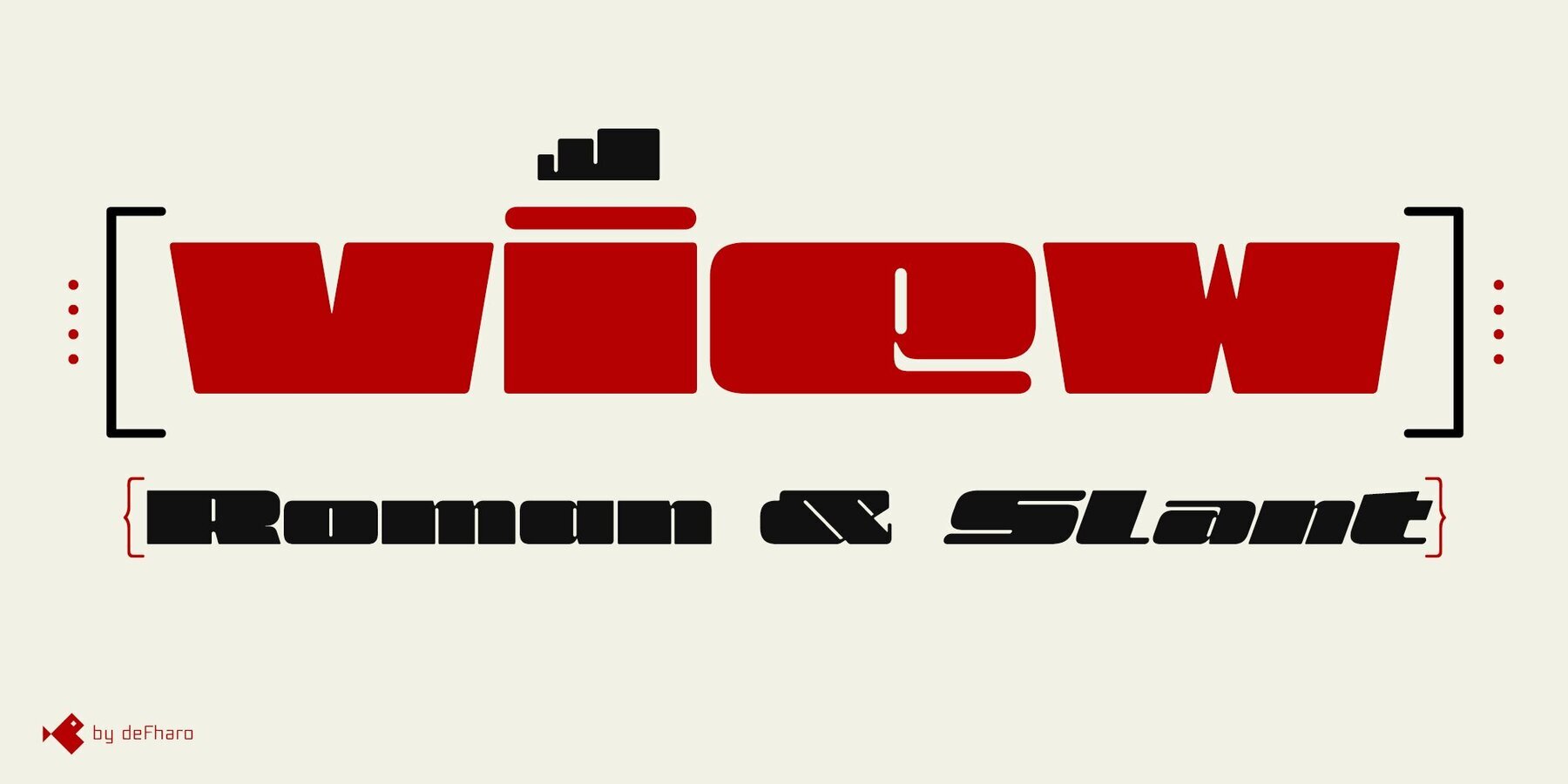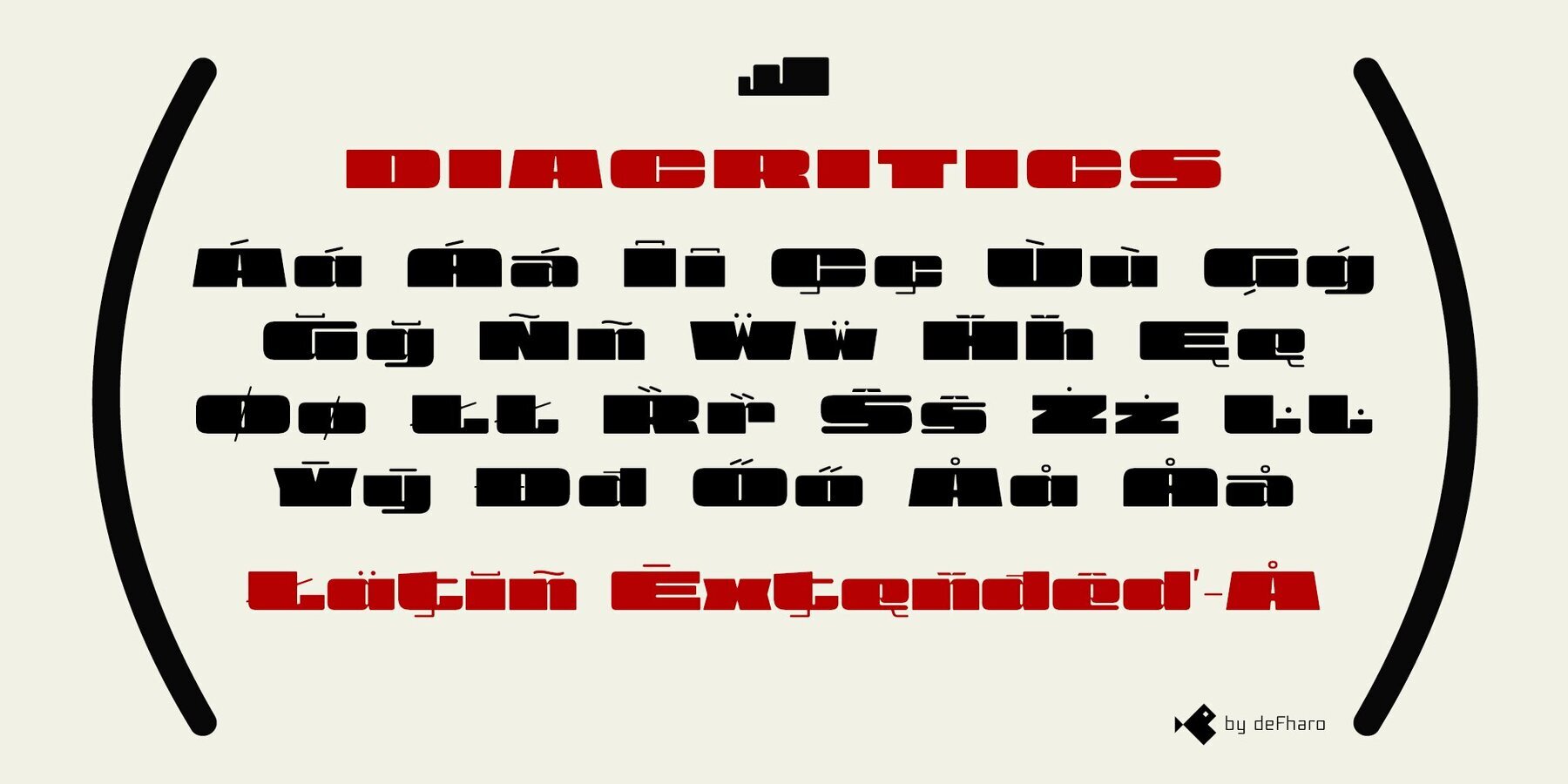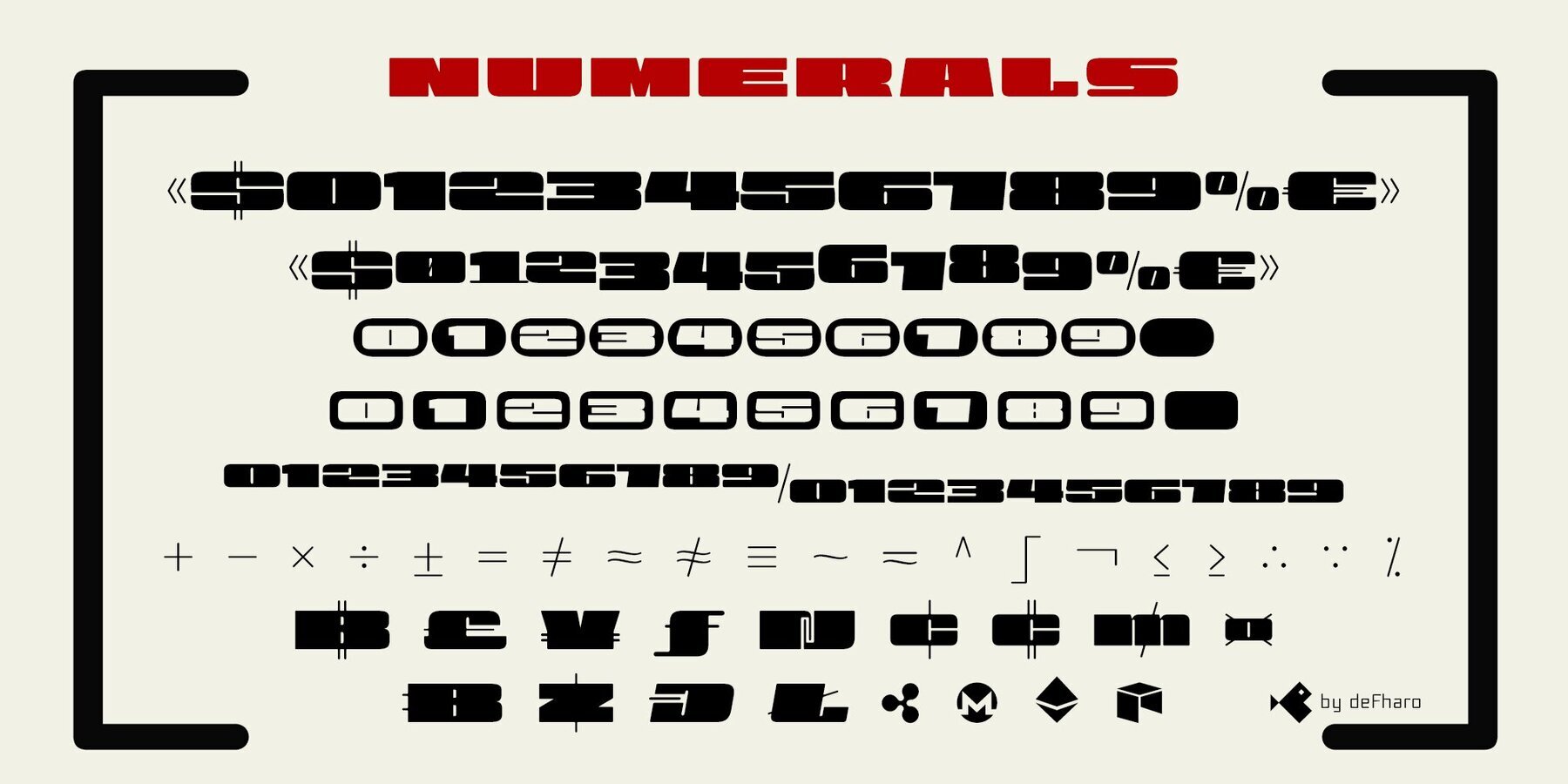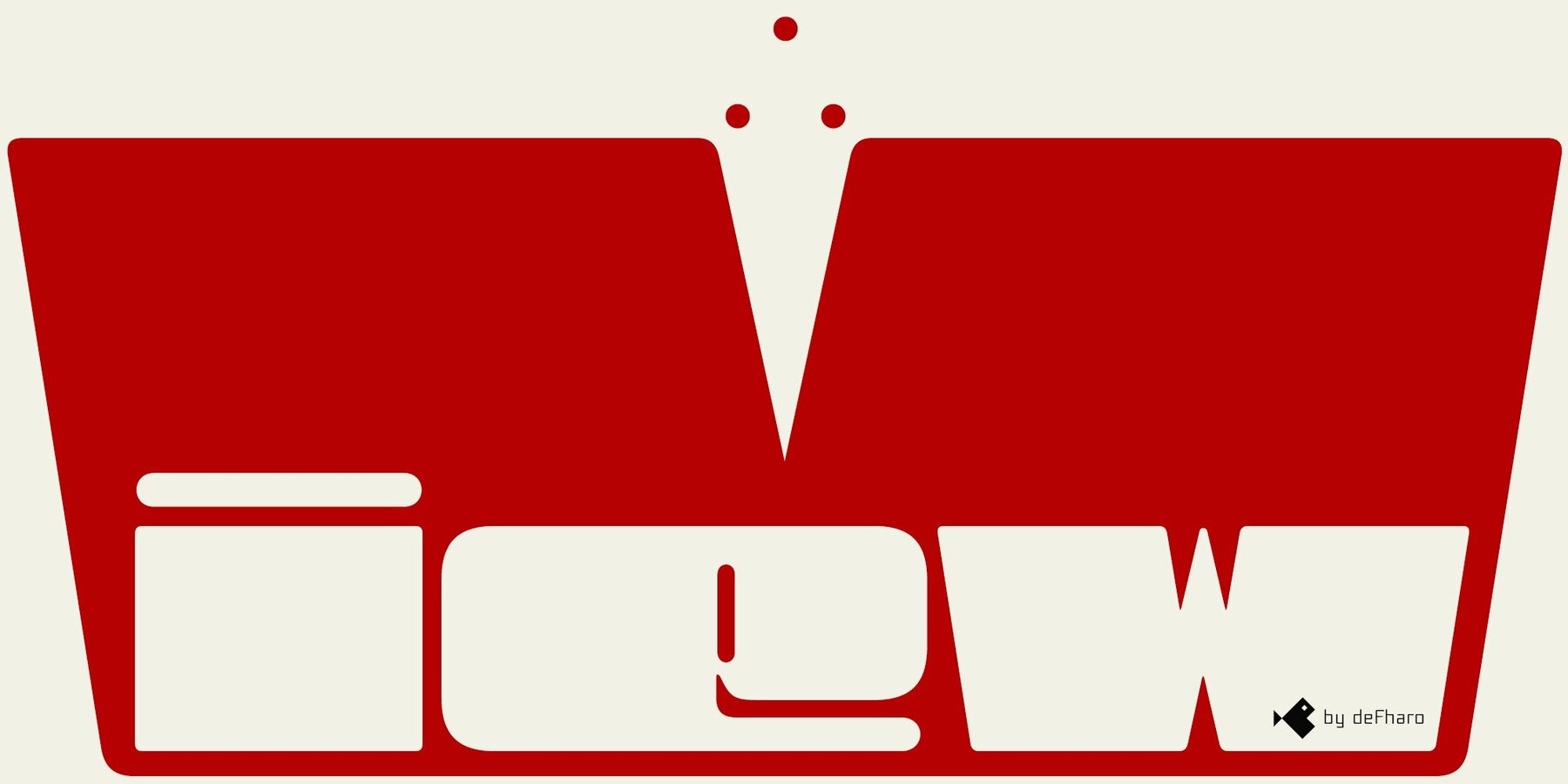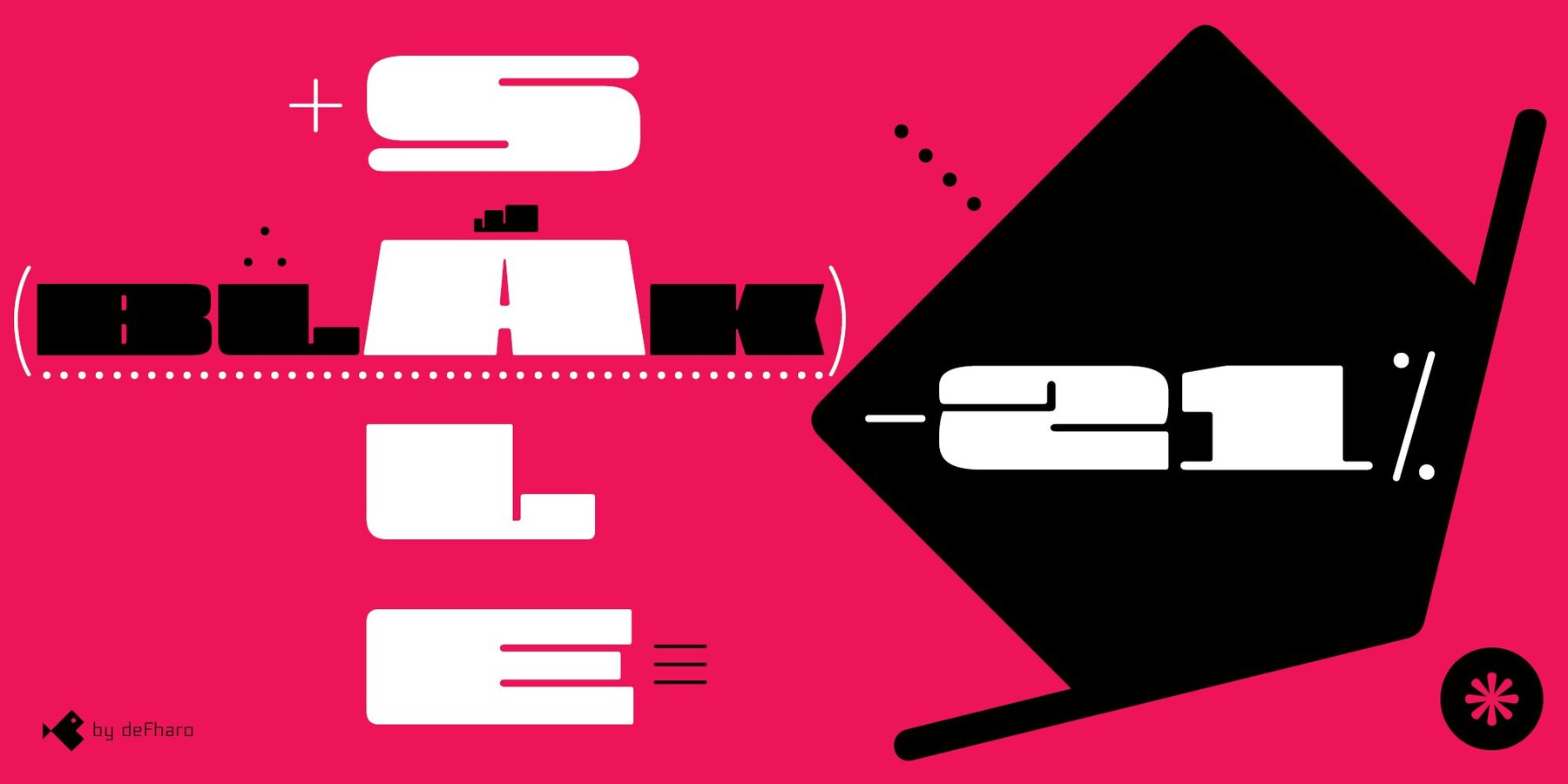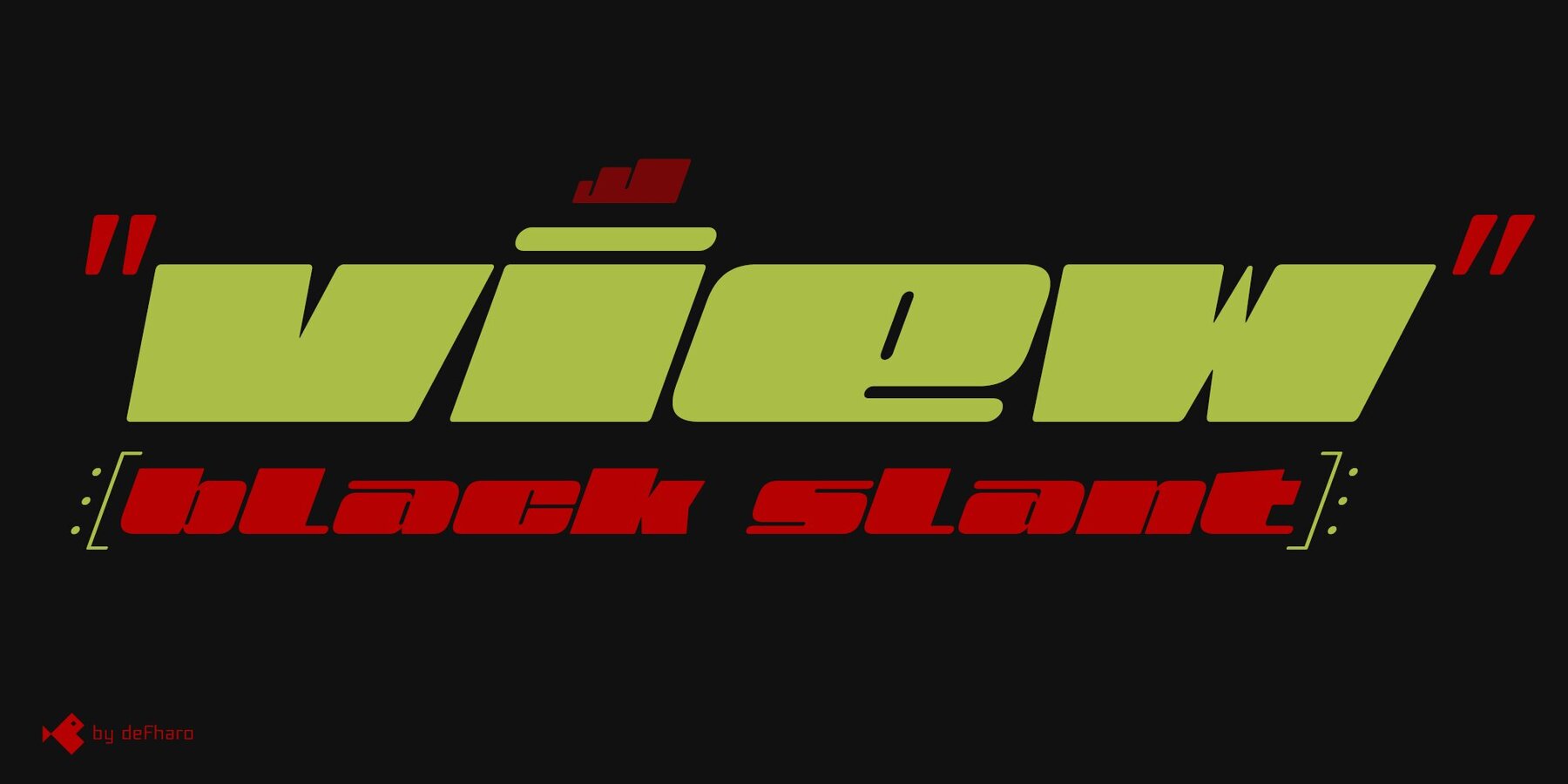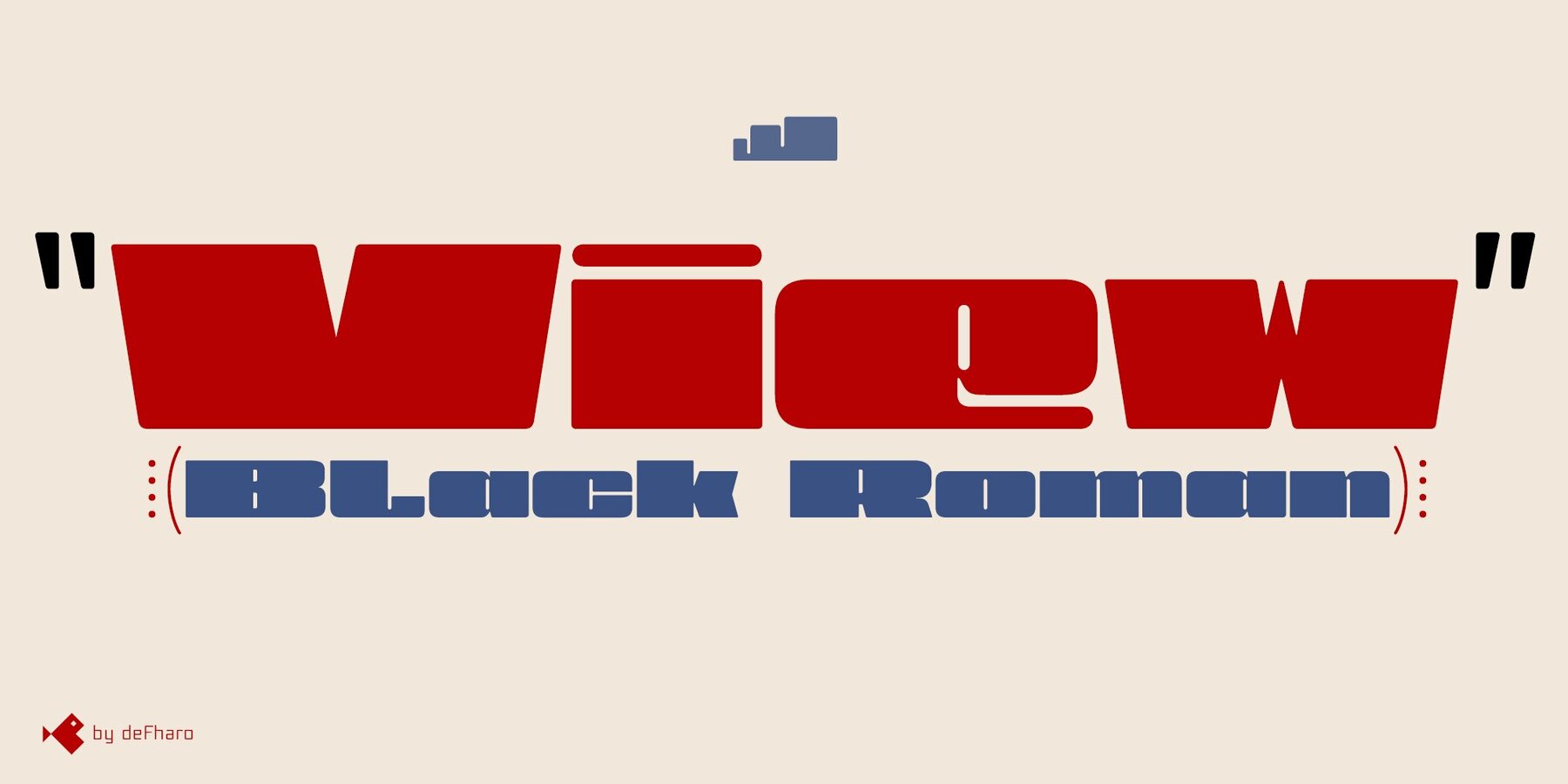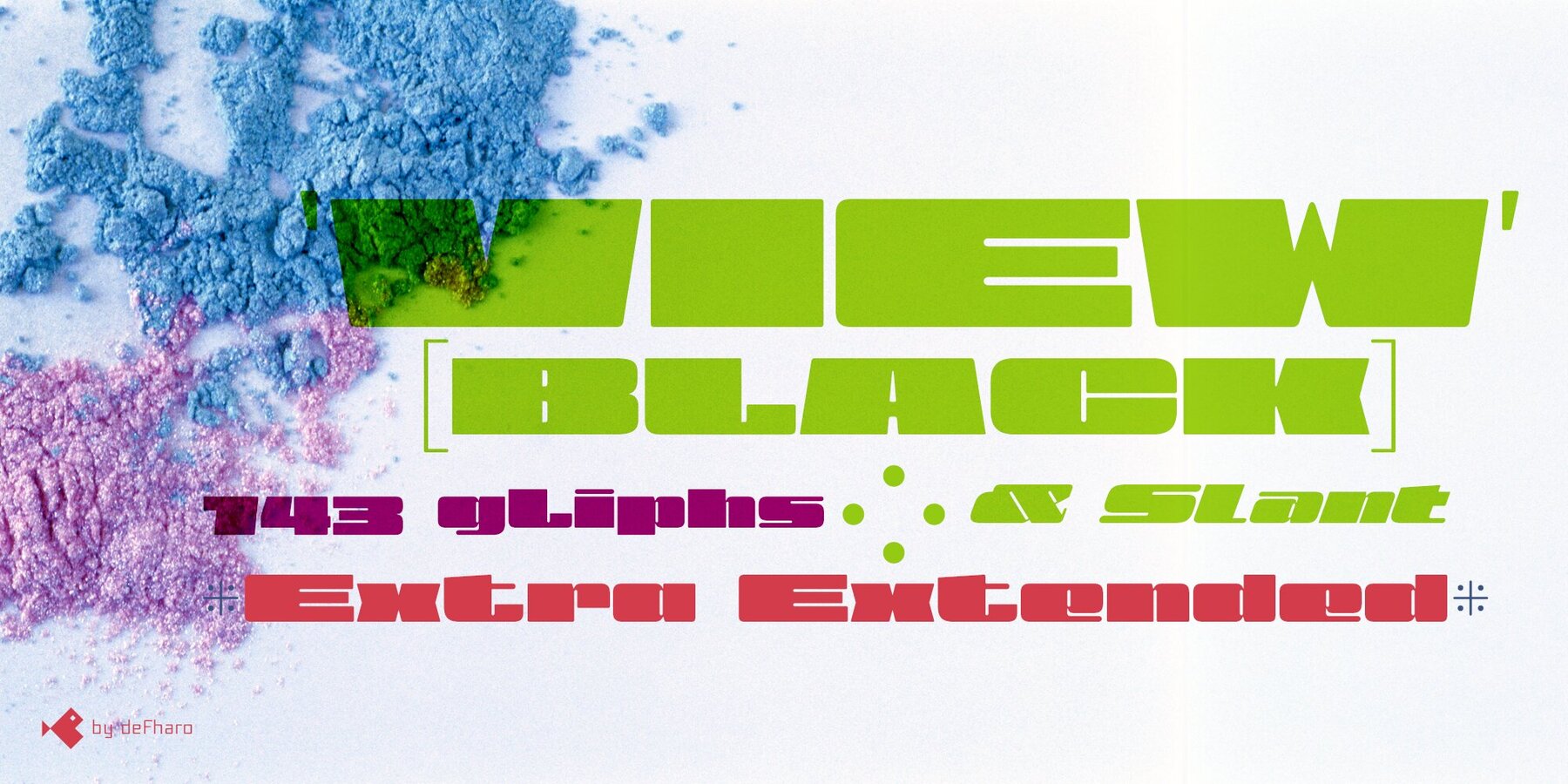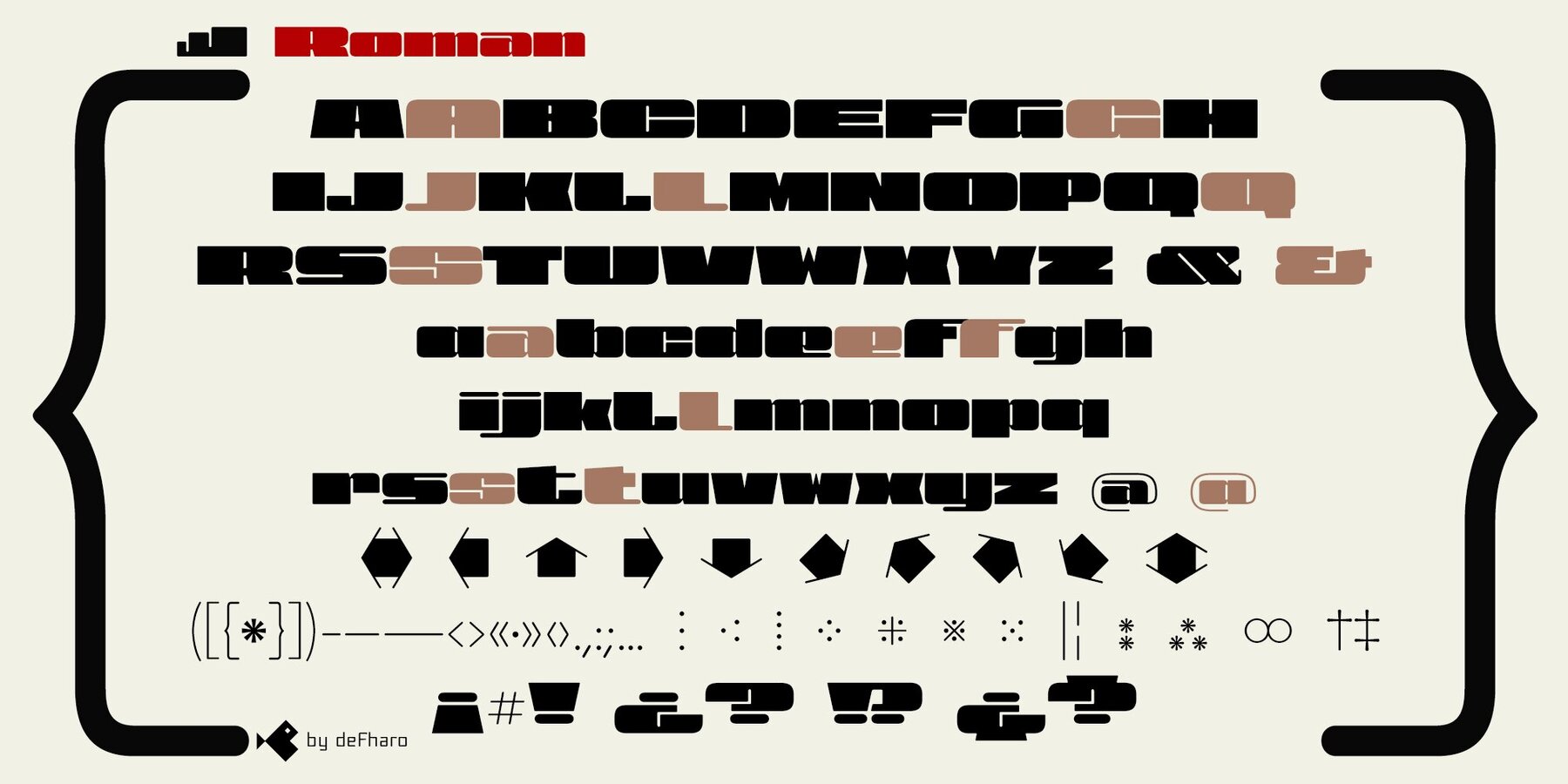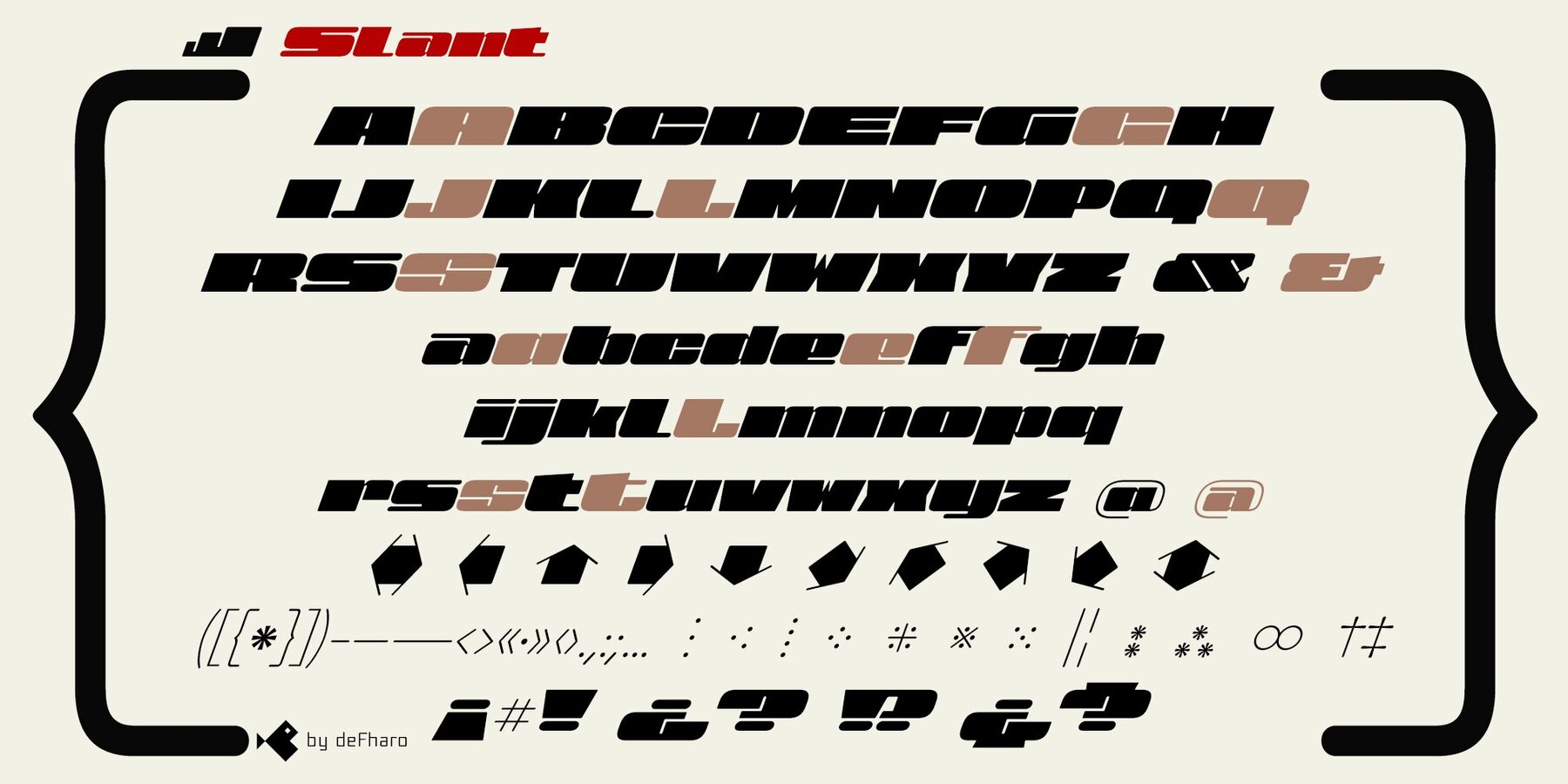
VIEW Font
View Black
View Black Slant
VIEW, a design by deFharo, commands attention with every character. It's a typeface that thrives in bold visual spaces, showcasing exaggeratedly wide proportions and a deeply impactful black weight. Each letter makes a bold statement, exuding a presence that's hard to ignore. This font embodies the power of super-thick, extra-wide typefaces, tailored for those who value a strong visual impact.VIEW Typeface
Dynamic Duality